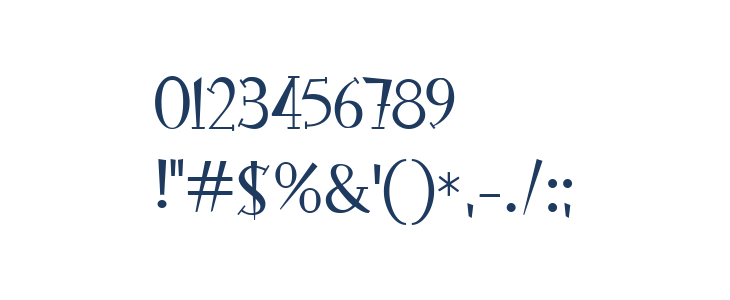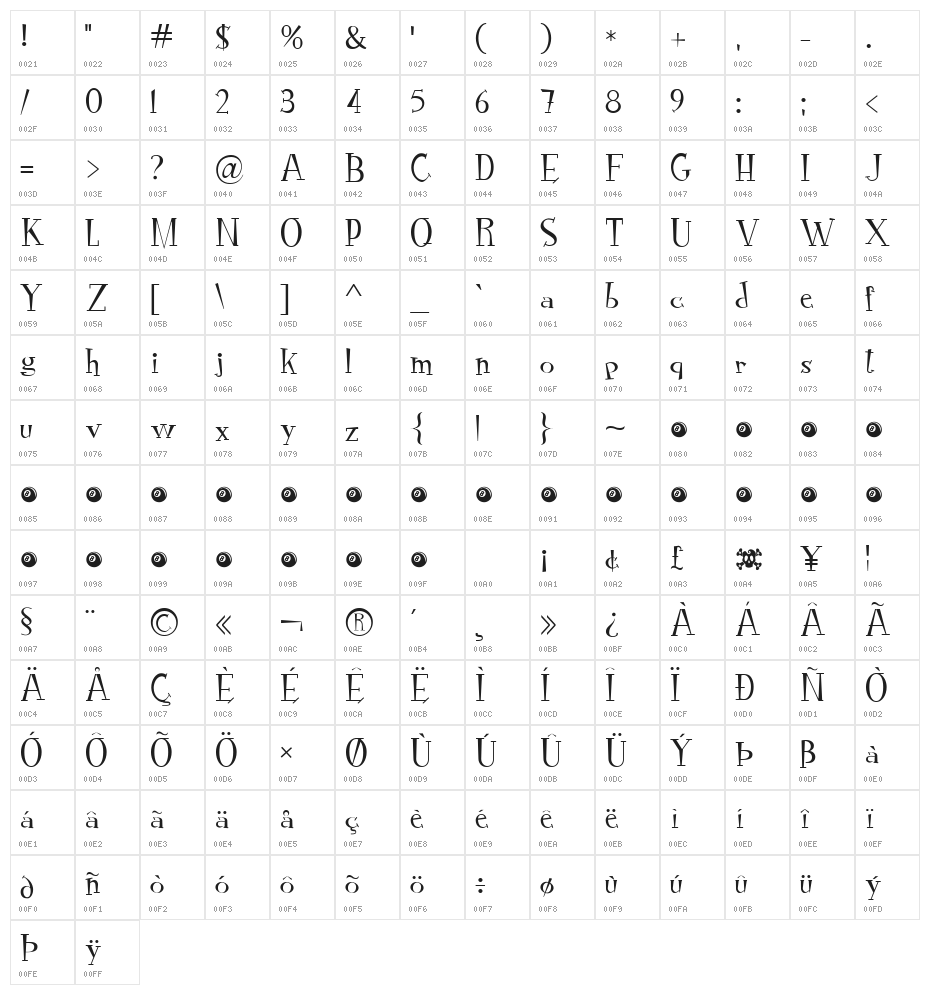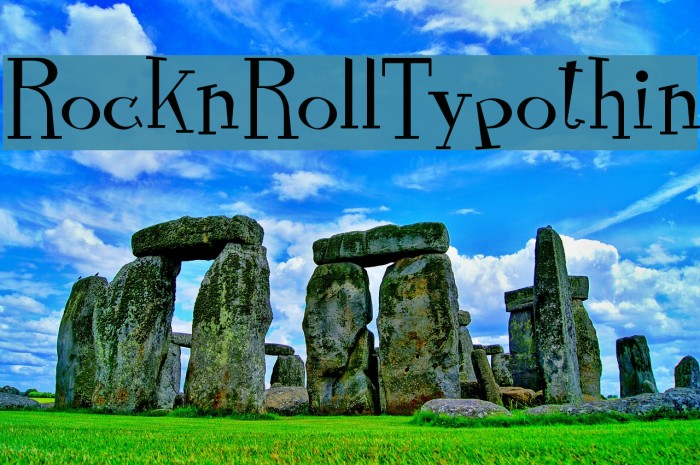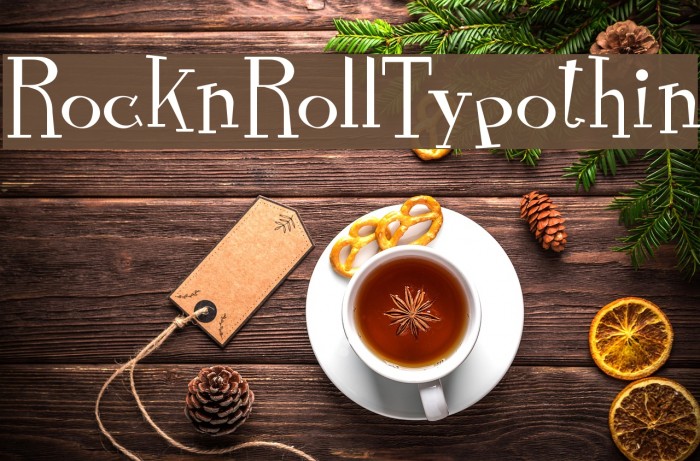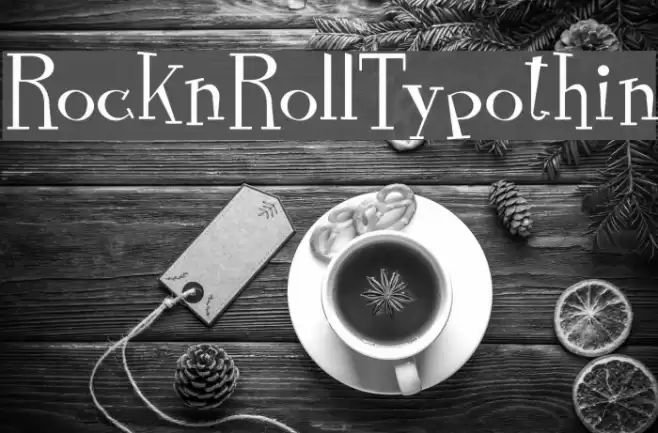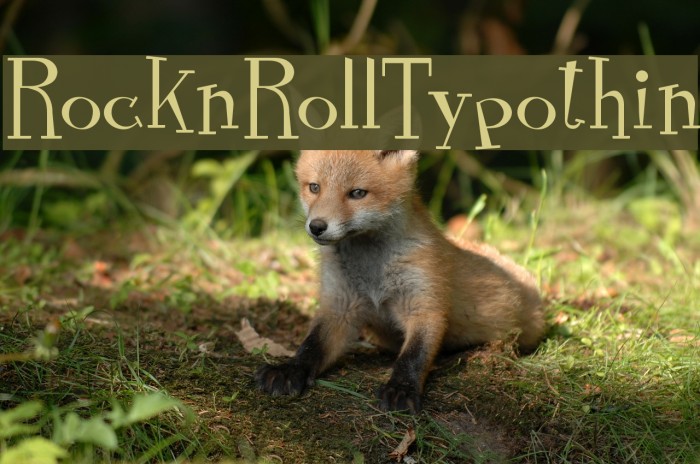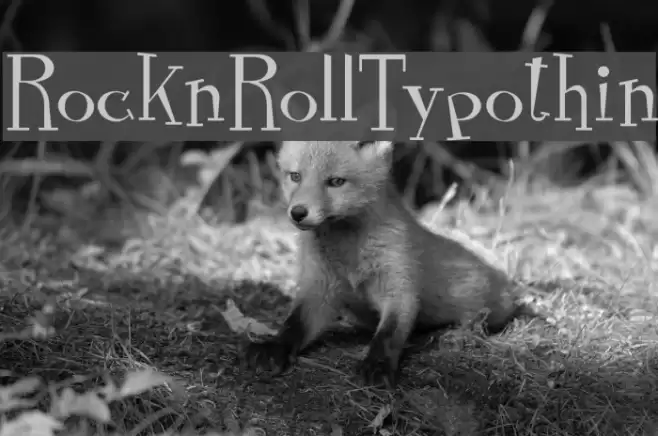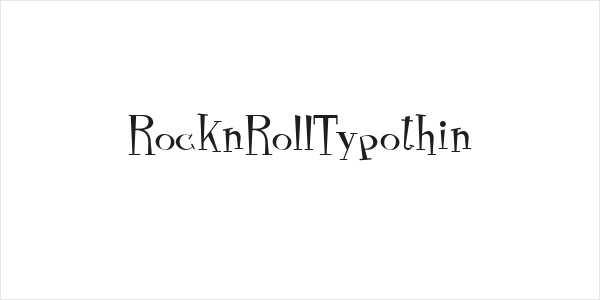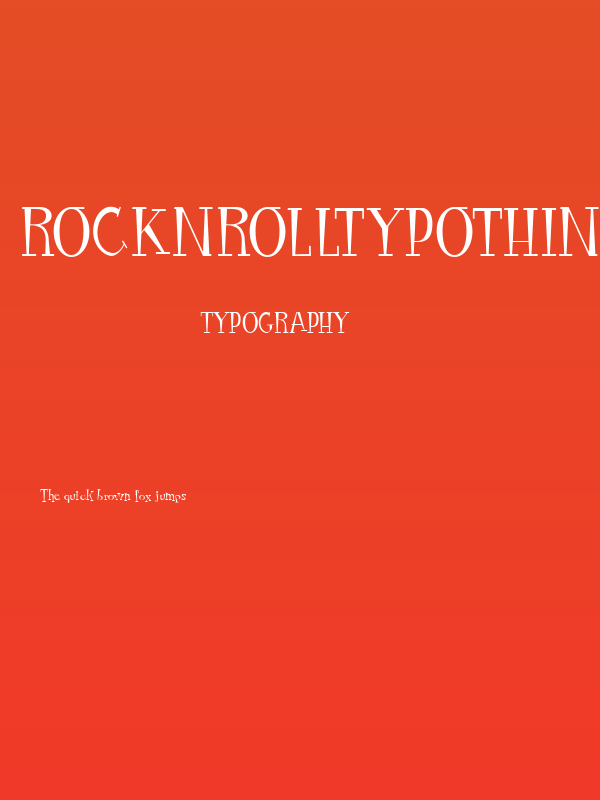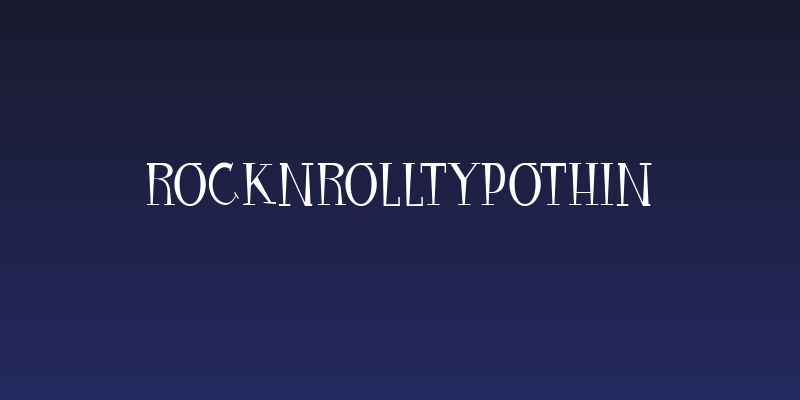
RocknRollTypothin Font
RocknRollTypothin Description
This font features a unique blend of classic serif elements with a modern twist. The uppercase letters are tall and elegant, with slight curves and sharp serifs that give them a sophisticated appearance. The lowercase letters maintain a playful yet refined style, with varying stroke widths and distinctive character shapes. Numbers are bold and clear, ensuring readability. Special characters are designed with the same attention to detail, making them stand out while maintaining harmony with the rest of the font. Overall, this font combines traditional serif characteristics with a contemporary flair, making it versatile for various design needs.
| Use Case | Headlines, Logos, Editorial design |
| Proposed Projects | Ideal for branding, editorial design, posters, and invitations where a touch of elegance and modernity is desired. |